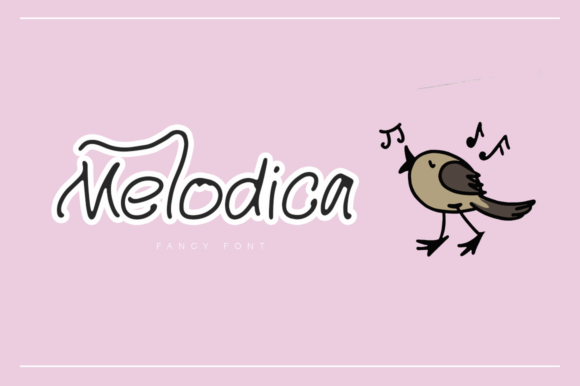
Prepare yourself to be captivated by Melodica Font, the enchanting script font family that will transform your designs into works of art. Picture this: a charming handwritten font, reminiscent of a gentle melody flowing across your screen, ready to infuse your projects with a touch of elegance and authenticity.
Melodica Font is not just a font; it's an experience. Each letter is meticulously crafted with a personal feel, making it the perfect choice for chalkboard quotes, teaching materials, and any project that demands a realistic, heartfelt touch. Its authentic charm will breathe life into your designs, captivating your audience with its undeniable beauty.
Imagine your wedding invitations adorned with Melodica Font, the graceful letters dancing across the page like a love song waiting to be sung. The font's delicate curves and flowing lines will create a sense of timeless romance, leaving a lasting impression on your guests. Melodica Font is the perfect harmony of elegance and simplicity, adding a touch of sophistication to any occasion.
Step into the world of Melodica Font and let your creativity soar. This versatile script font is a maestro of expression, lending its grace to logos, branding, social media posts, and more. Its adaptability knows no bounds, making it the perfect companion for designers, bloggers, and entrepreneurs seeking a font that speaks to their unique style.
Melodica Font is more than just a tool; it's an extension of your artistic vision, bringing your ideas to life with a touch of magic. Its effortless charm will transform mundane words into captivating messages, leaving your audience spellbound. Experience the power of Melodica Font today and embark on a creative journey like no other.